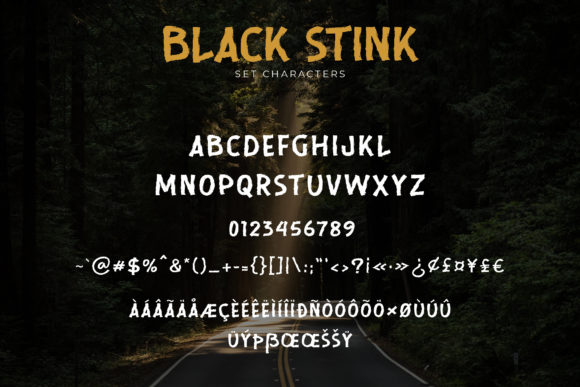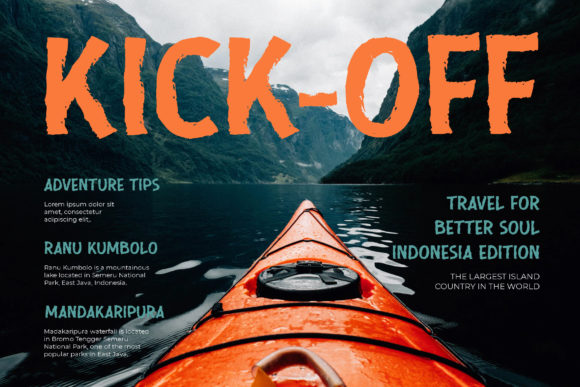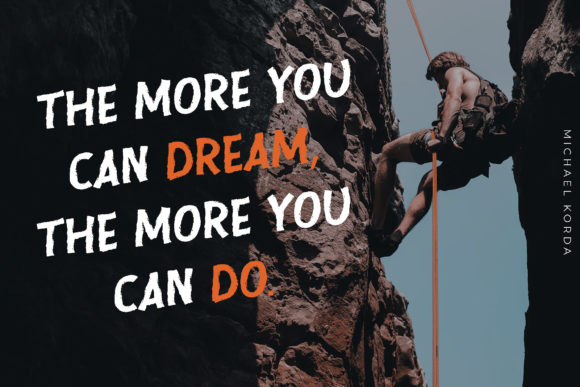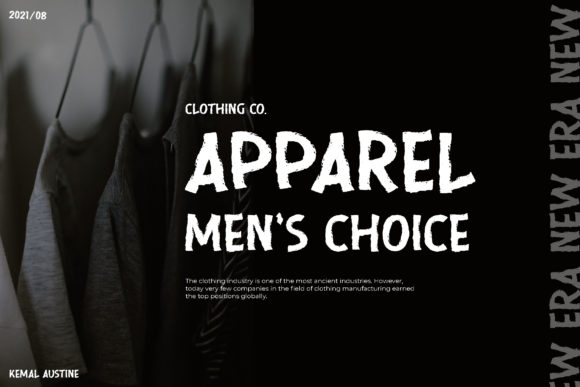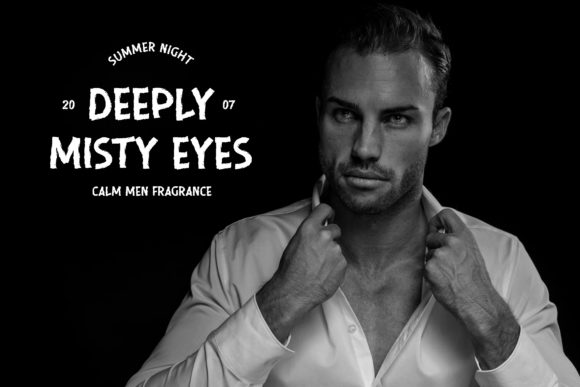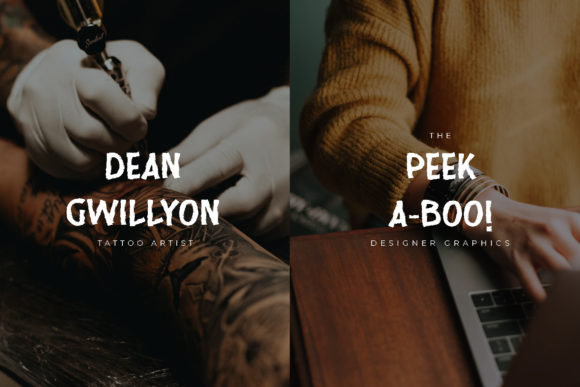
Get Ready to Make a Statement with Your Designs
There’s nothing quite like that moment of creative clarity – the spark of inspiration that sets your imagination ablaze and gets you excited to dive into a new project. For designers, it’s often about finding the perfect combination of style, texture, and tone to bring their vision to life. And that’s exactly where the Black Stink Font comes in – a cool, rough-styled, and bold display font that’s sure to make your designs stand out from the crowd.
Whether you’re working on a poster, flyer, or print, the Black Stink Font is the perfect choice for adding some grit and edge to your design. Its versatility makes it a valuable asset for any designer looking to add some visual interest to their work. With the Black Stink Font, you can explore endless possibilities and create designs that truly pop.
Key Features of Black Stink Font
- Font Family: Black Stink Font is a unique display font, ideal for headlines and titles.
- Unique Characteristics: Black Stink Font features bold, distressed, and edgy lines, making it perfect for grunge, punk, and alternative designs.
Designer Review: Black Stink Font
When I first saw the Black Stink Font, I was intrigued by its unique, edgy look. The font is perfect for those who want to make a statement with their branding or design projects. Here are some things that work well about this font:
- ✨ Distinctive aesthetic: The Black Stink Font has a bold, gothic feel that’s perfect for creating a dramatic or mysterious atmosphere.
- ✨ Versatility: The font is available in multiple weights and styles, making it suitable for a wide range of design projects, from headlines to body text.
- ✨ Customization options: The font can be easily customized to fit your brand’s specific needs, with options for color, size, and layout.
- ⚠️ Limited legibility: In certain contexts, the Black Stink Font can be difficult to read, especially at smaller font sizes.
- ⚠️ Overuse: The font’s bold, edgy look can become overwhelming if used too extensively, so it’s essential to balance it with other design elements.
Overall, I think the Black Stink Font is a great choice for designers who want to add some edge to their projects. While it has some limitations, its unique aesthetic and versatility make it a valuable addition to any design toolkit.
The Black Stink font is ideal for creating edgy, industrial, or grunge-inspired designs.
Use it for:
Rock music posters
Urban fashion designs
Grunge-style logos
Distressed or worn-out effects